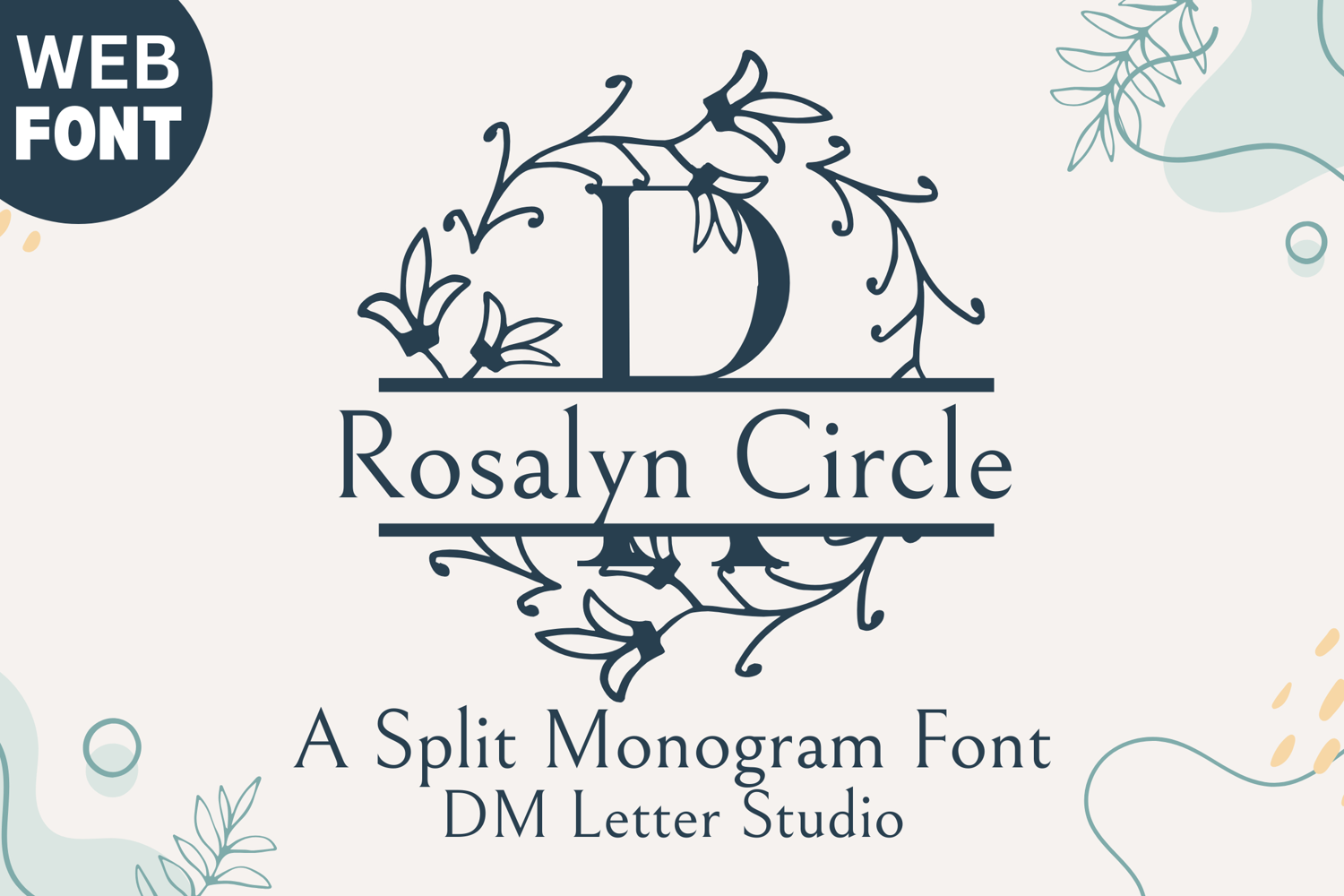
Rosalyn Circle Split Monogram - Floral Serif Split Monogram
Rosalyn Circle Split Monogram – Floral Serif Split Monogram with Circular Frame
Rosalyn Circle Split Monogram is an elegant serif font featuring a split-letter design framed inside a delicate circular wreath of roses and foliage. This font blends classical charm with soft botanical flourishes, offering a refined canvas for personalized names, initials, and decorative labels. Ideal for weddings, gifts, Cricut crafts, and feminine branding.
• Split Monogram Format: Horizontal break in each letter allows you to insert names or custom words.
• Circular Rose Frame: Each letter is enclosed within a beautiful rose-themed round wreath.
• Graceful Serif Letterforms: Timeless serif structure adds class and legibility to every design.
• Ideal For: Wedding decor, monogram logos, Cricut split name projects, personalized gifts, and floral-themed branding.